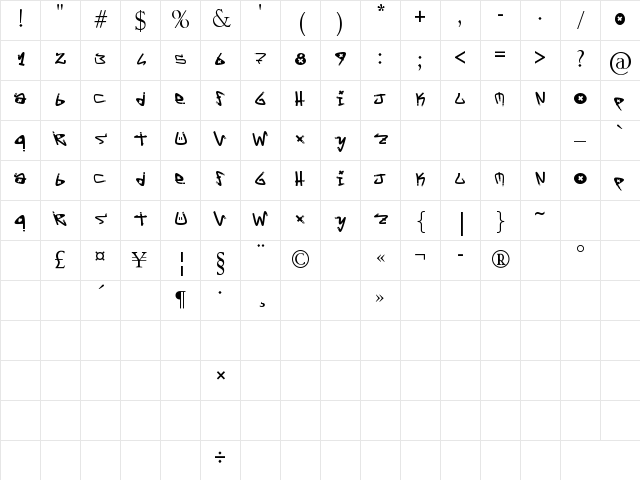
Y-Yo Tags Regular Free Font
Y-Yo Tags Regular
Designer: Mare97
Design Context for Y-Yo Tags
Y-Yo Tags is a composed and adaptable typeface that performs quietly and consistently across a wide range of design contexts.
Pro Tip: Use Y-Yo Tags in both headline and body roles to test its range before committing to a single application.